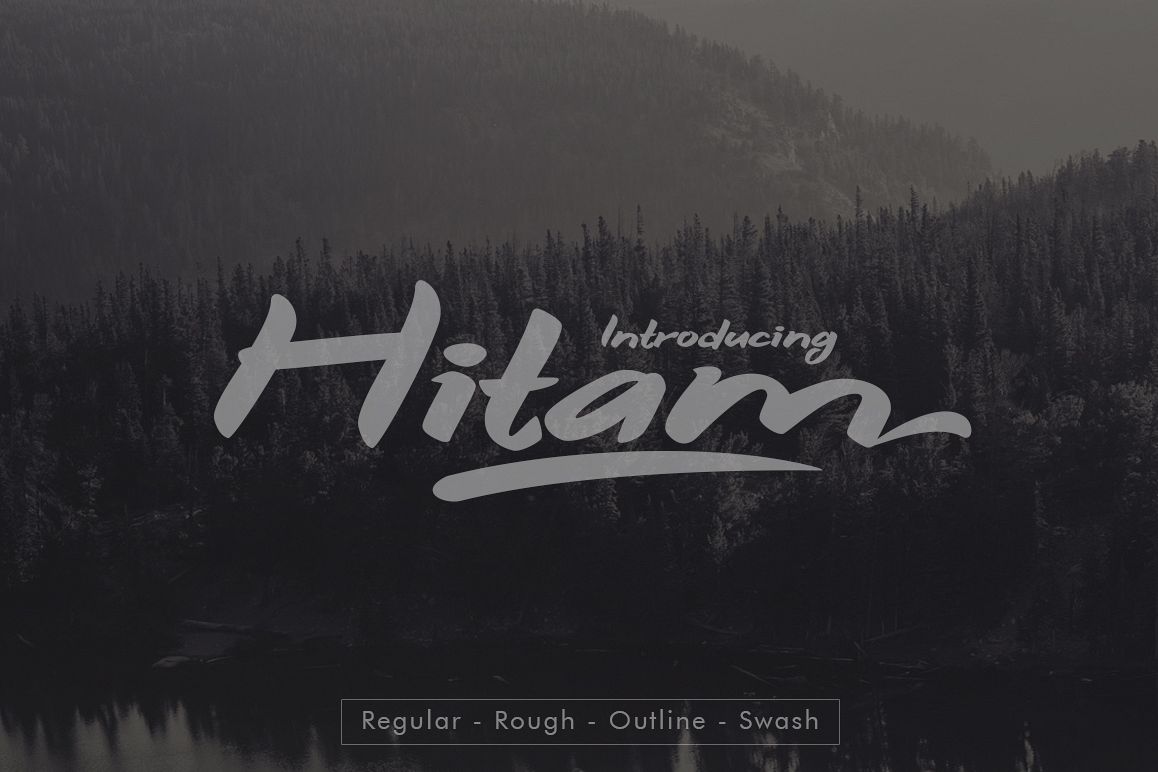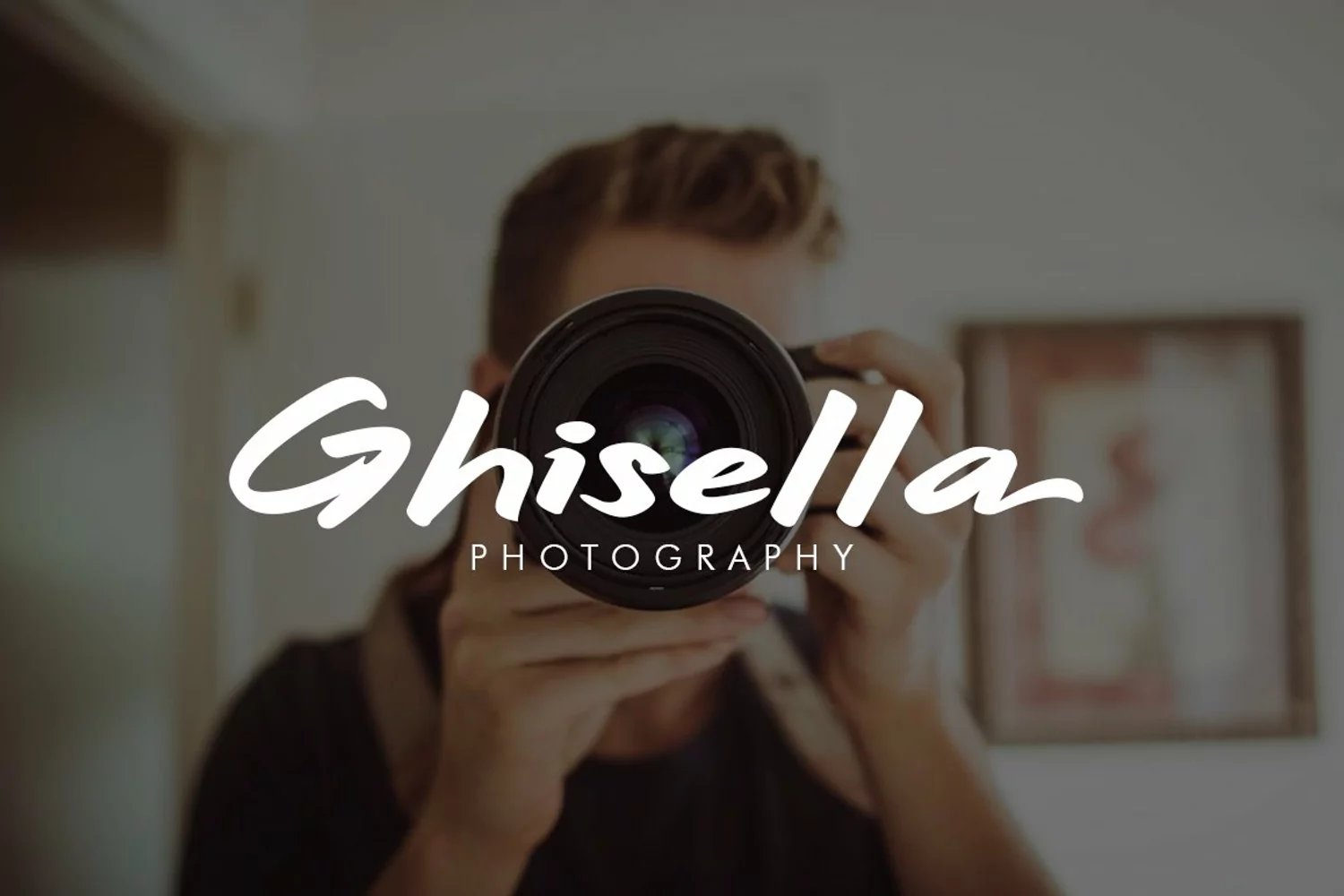
Hitam Bold 3 Font
Introducing...
Hitam Bold Font is a fun market pen font with a quirky style and feel to it! Hitam Bold Font suitable for logo, branding, greeting card, signature, poster and any design that you create.